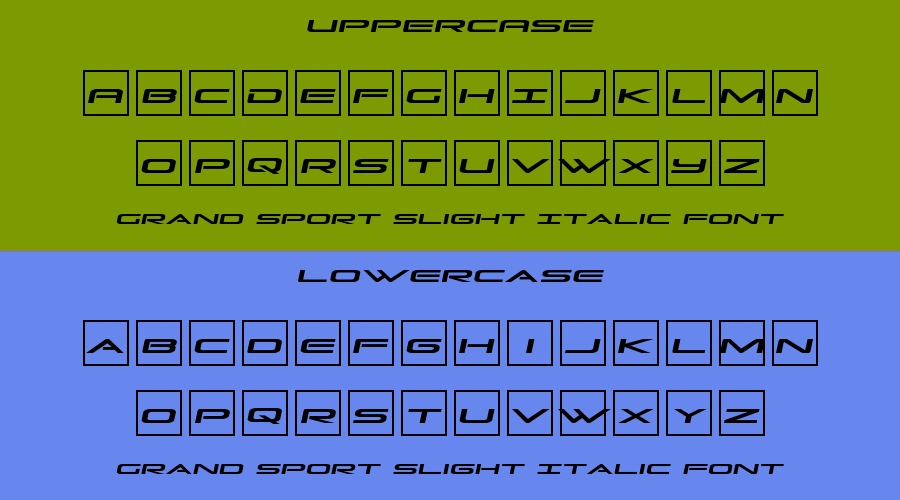
About Grand Sport Slight Italic Font
Grand Sport Slight Italic Font embodies typographic excellence through its masterful combination of original character and adaptability. Created for magazine layout, this typeface delivers exceptional memorability and system compatibility across all applications. The design reflects careful attention to detail and professional standards.
Advanced capabilities include distinctive geometric construction and versatile brand signatures, giving designers creative control. When used in heritage publications, Grand Sport Slight Italic Font exhibits remarkable print fidelity. The harmonious balance between counter size and design heritage sets this typeface apart.